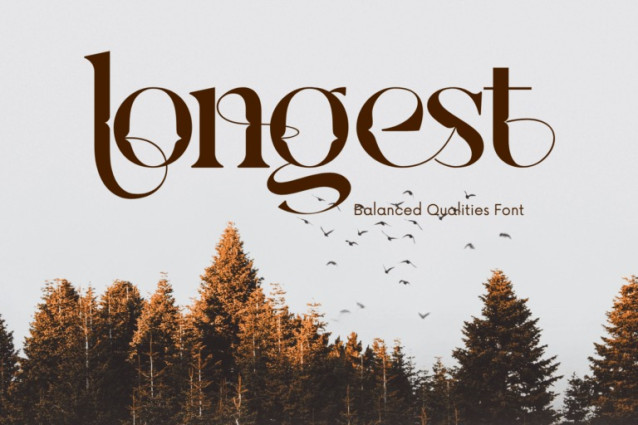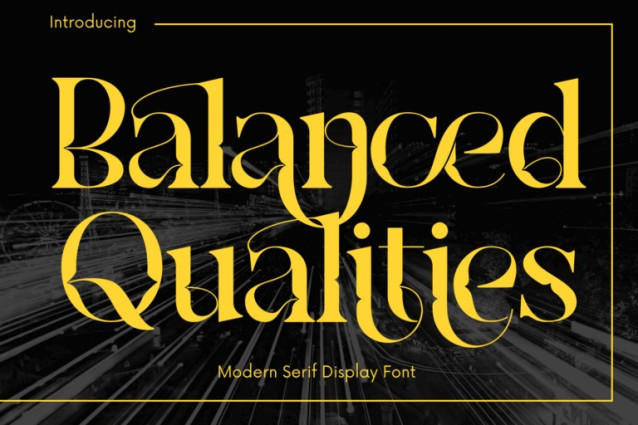
Balanced Qualities Font
Balanced Qualities – Elegant Font is a refined high-contrast serif display font designed for elegance, sophistication, and visual drama. With its sweeping terminals, graceful ligatures, and sculptural letterforms, this font captures the perfect harmony between tradition and artistic flair. Inspired by editorial typography and luxury branding, Balanced Qualities brings a modern take to classical forms. Each glyph flows with intentional rhythm and style — ideal for headlines, fashion logos, magazines, and creative projects that call for both beauty and distinction.
Uppercase & Lowercase Letters
~100 Special Ligatures
Multilingual Accented Characters
High Contrast & Dramatic Curves
About 100 ligatures combined with Stylistic Alternates Font: